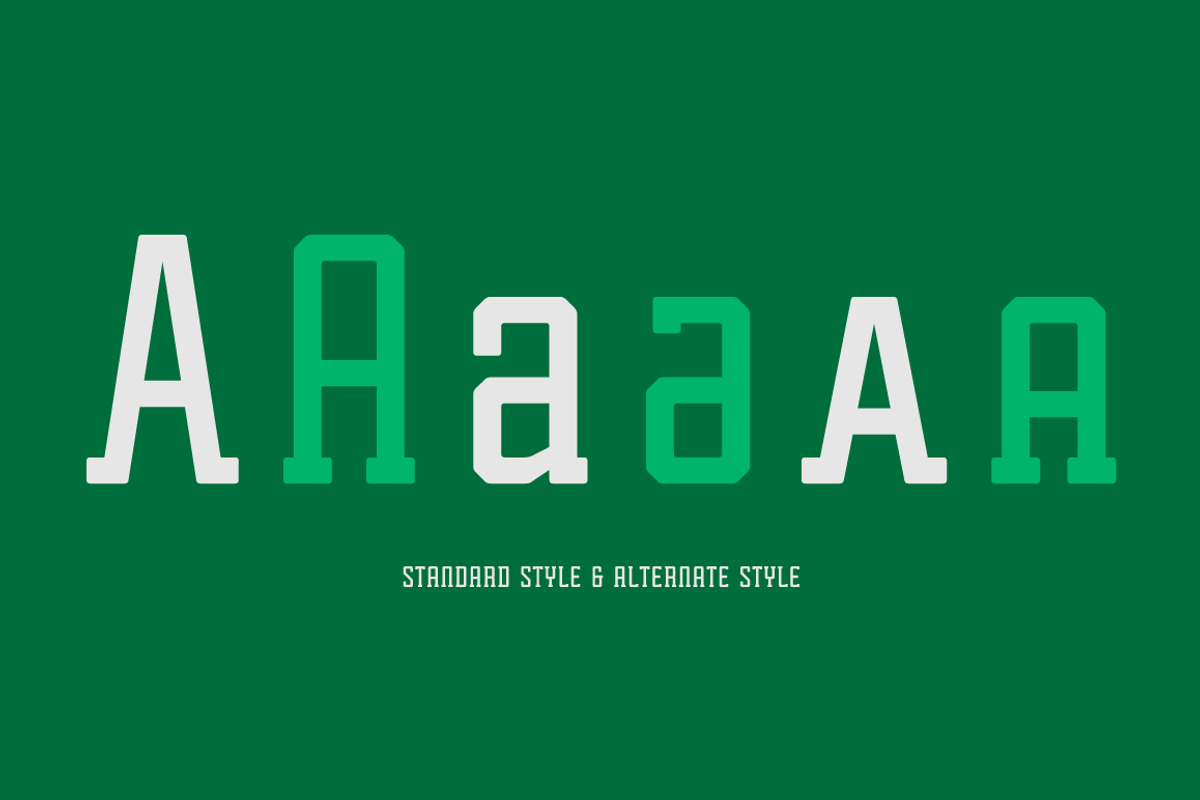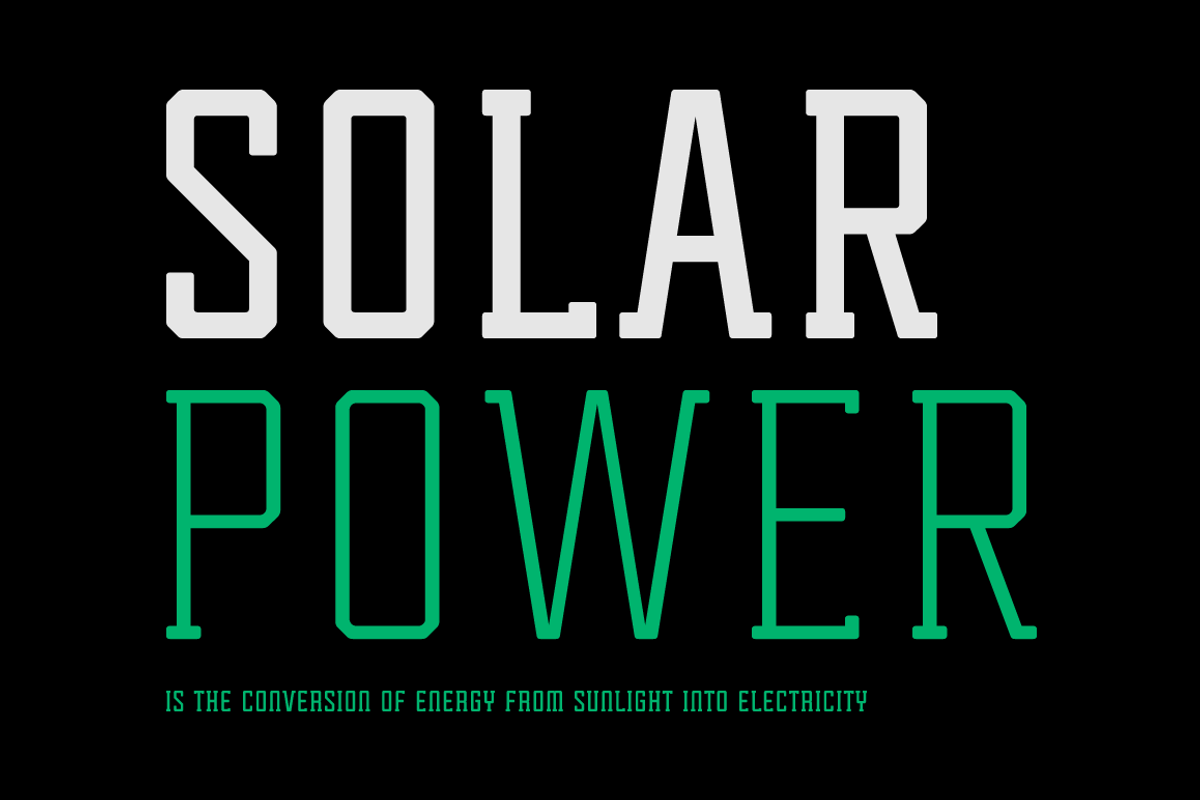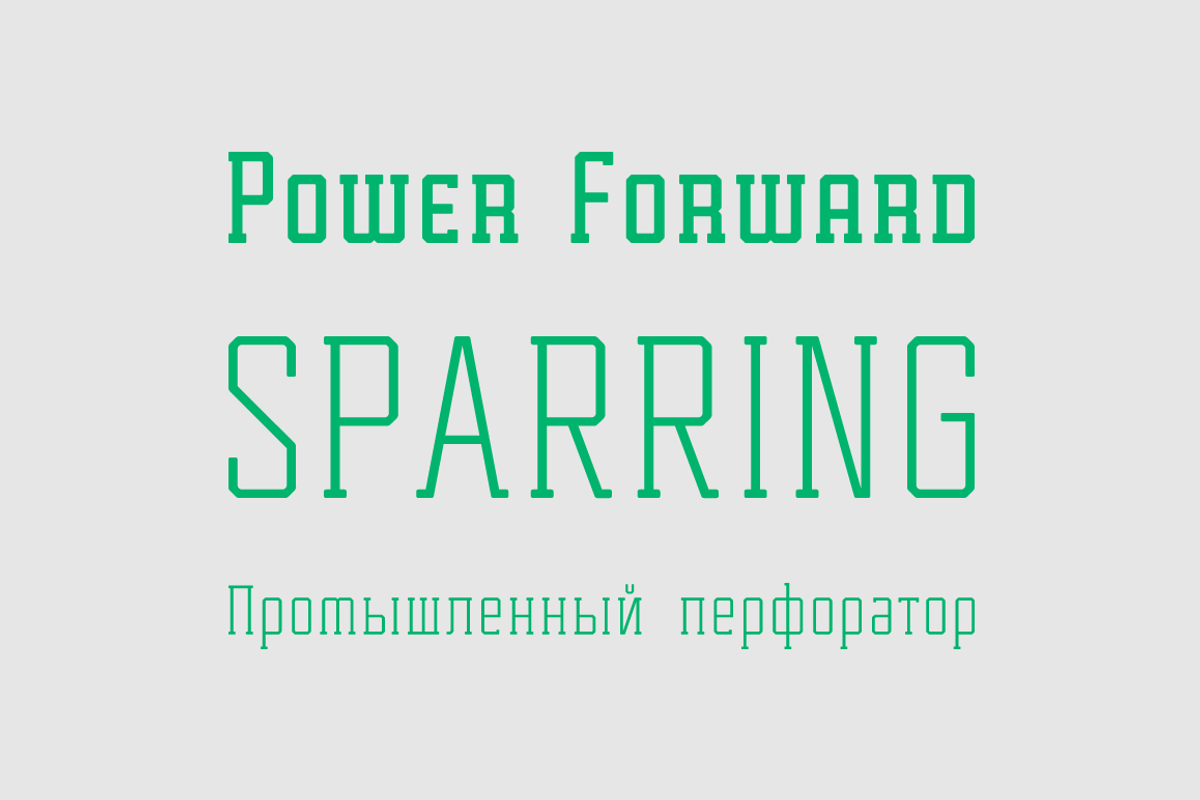
Tecnica Slab Font Family
Tecnica Slab Font Family by Graviton Font Foundry is a font selected for branding, posters, packaging, typography.
- The standard styles give texts a classic appearence while alternate styles give texts a playfull one.
- Tecnica Slab consists of 4 styles, 2 weights plus alternates, each containing small caps and glyph coverage for several languages.
Why Tecnica Slab Font Family is worth a look
Tecnica Slab Font Family by Graviton Font Foundry fits naturally into Branding, posters, packaging, typography.